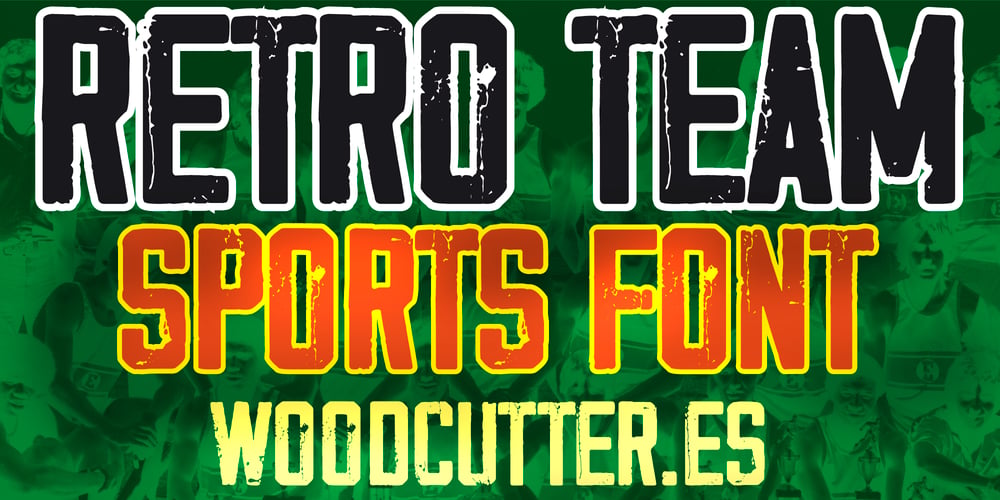
Retro Team Font Family was designed by Jordi Manero and published by Woodcutter. Retro Team contains 1 styles and family package options. “Retro Team font features tall, delicately retro letters with imperfections and scratches reminiscent of vintage sports team typography, adding a worn-out charm. Ideal for projects seeking to evoke a nostalgic sports aesthetic, this font brings a sense of authenticity and character. Perfect for posters, jerseys, and branding, ‘Retro Team’ captures the essence of classic sports typography while adding a unique weathered quality, giving your designs a vintage flair.”–Uppercase